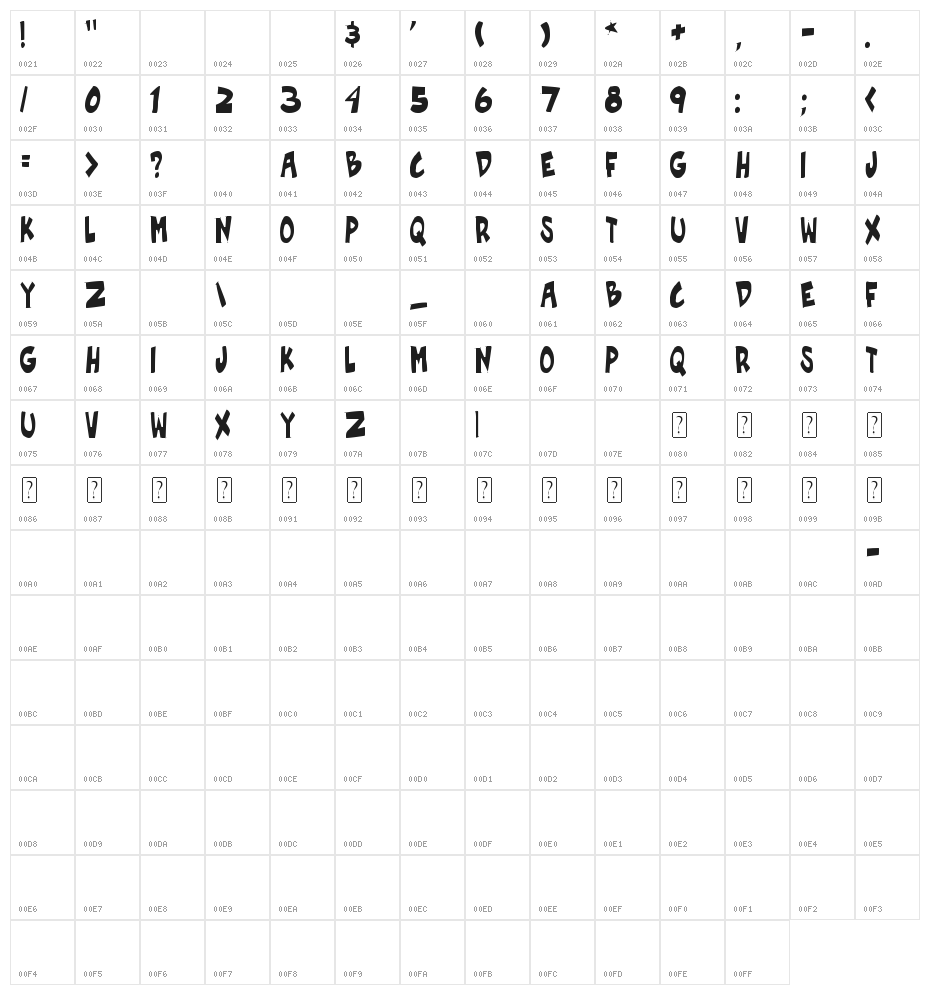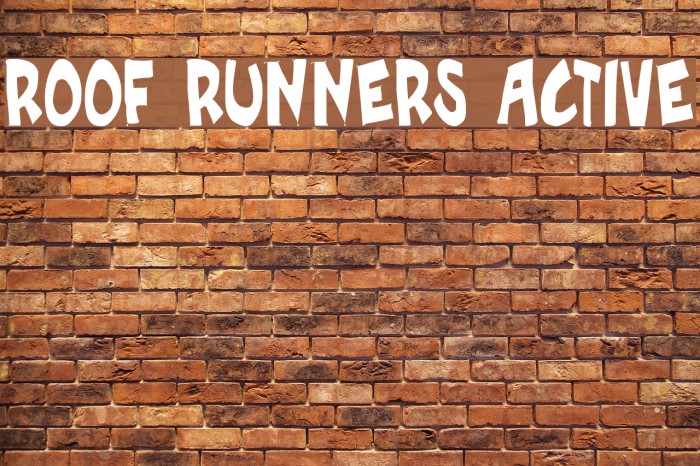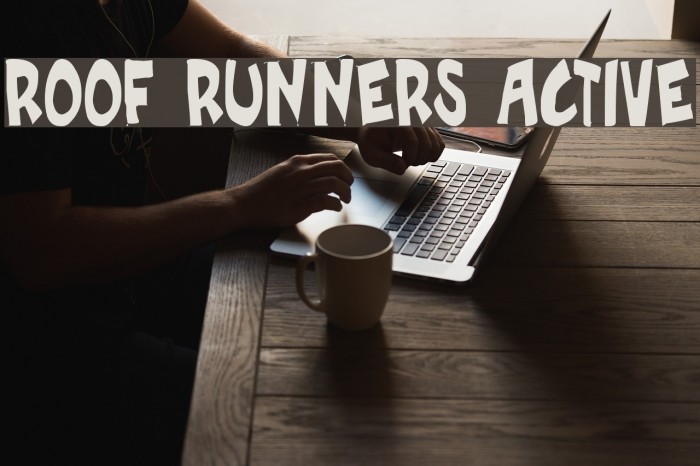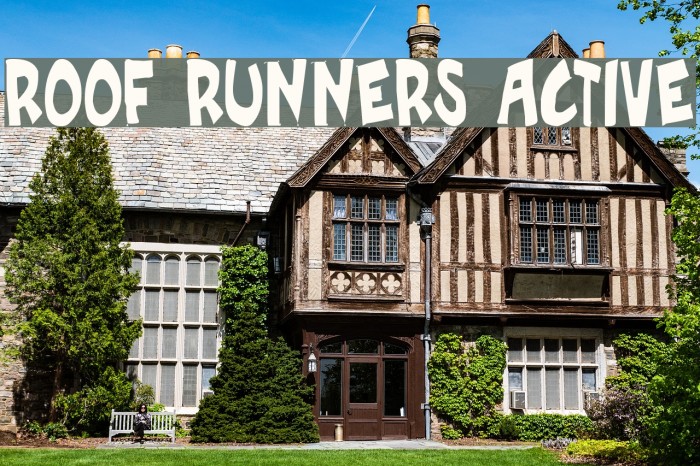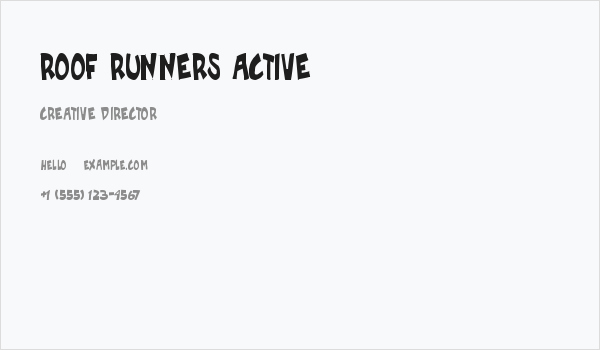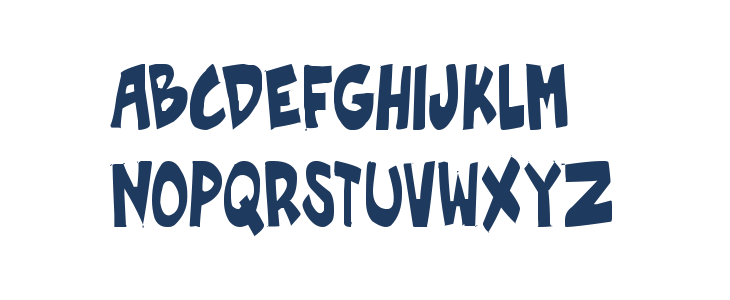
Roof runners active Font
Roof runners active Description
This font features a bold and playful style with a hand-drawn appearance. The letters are irregular and slightly tilted, giving a dynamic and energetic feel. The strokes are thick and consistent, contributing to a strong visual impact. The characters are well-spaced, ensuring readability while maintaining a casual and informal tone. The font includes both uppercase and lowercase letters, numbers, and a variety of special characters, making it versatile for different design needs. Its unique style is reminiscent of graffiti or street art, adding a creative and youthful vibe to any project.
| Overall Style | Playful, Energetic, Creative |
| Proposed Projects | Ideal for posters, flyers, children's books, and any project needing a fun, energetic touch. |